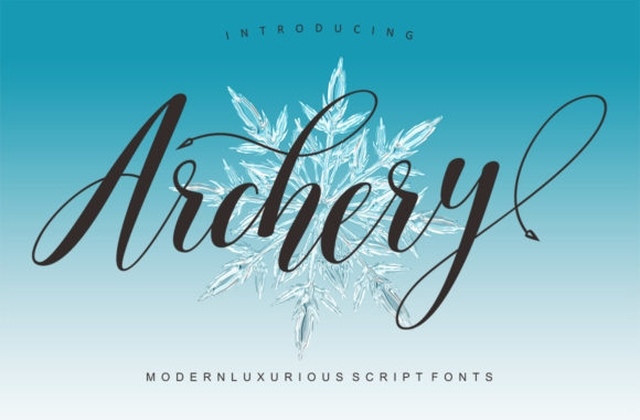
Archery Script Font
Archery Script Font is perfect for various design applications including medieval-themed restaurant branding, traditional archery club signage, fantasy book covers, historical reenactment event materials, hunting lodge logos, outdoor adventure company communications, Renaissance festival graphics, traditional craft workshop signs, heritage sporting goods packaging, and authentic medieval entertainment venues. This precise typeface excels in projects requiring traditional archery heritage and medieval craftsmanship that celebrates the ancient art of precision shooting and the timeless appeal of traditional marksmanship.
What makes Archery Script Font so exciting is its masterful embodiment of traditional archery precision and medieval craftsmanship through letterforms that suggest the focused concentration and skilled artistry required for expert marksmanship. The font features flowing script elements that mirror the graceful arc of an arrow's flight, precise character connections that reflect the accuracy demanded by traditional archery, and distinctive details that evoke hand-carved bow staves and fletched arrows. Its distinctive precision character and traditional appeal make it perfect for brands seeking to communicate skill, tradition, and the meditative focus that defines exceptional archery and traditional marksmanship.
Archery Script Font family includes elegant script weights and traditional variations that enhance its versatility for different heritage archery applications. Each style maintains the font's signature precise character while providing options for various traditional craft design approaches. The family also features archery-themed decorative elements, medieval flourishes, and traditional sporting symbols that can be combined with the letterforms to create cohesive heritage archery design systems.
Whether you're developing traditional sporting brands, medieval-themed establishments, or heritage craft communications, Archery Script Font Free Download provides authentic typography that celebrates the ancient art of archery and honors the patient skill required for traditional marksmanship excellence. This typeface transforms ordinary communications into focused statements that promise authentic traditional experiences and skilled craftsmanship. The font's precision appeal makes it particularly effective for archery equipment companies, traditional sporting clubs, and heritage tourism businesses targeting audiences who appreciate traditional skills and medieval craftsmanship.
Archery Script Font stands out by delivering genuine traditional archery authenticity that feels connected to real medieval heritage rather than artificial fantasy theming. Its carefully crafted precision proportions and traditional details ensure that designs feel authentically connected to archery traditions and medieval craftsmanship. From traditional sporting goods branding to heritage festival materials, this font provides designers with tools to create communications that celebrate traditional marksmanship and inspire appreciation for ancient archery arts through precise, heritage-inspired script typography that hits the target every time.